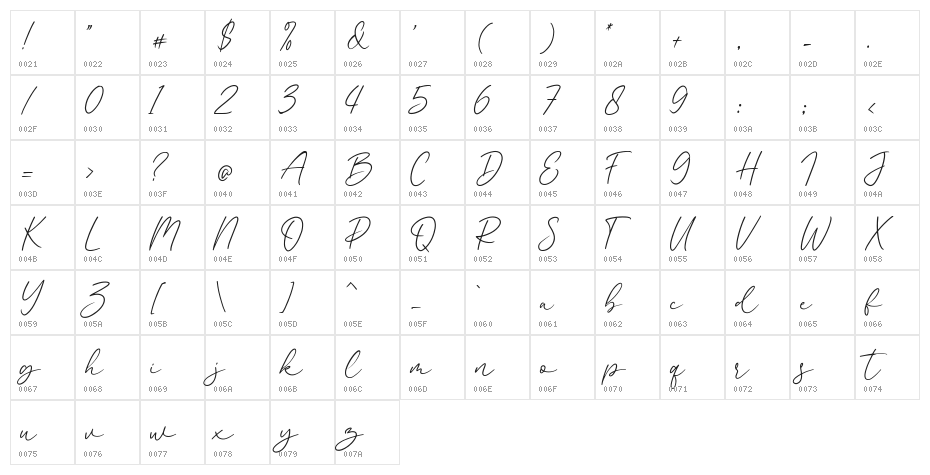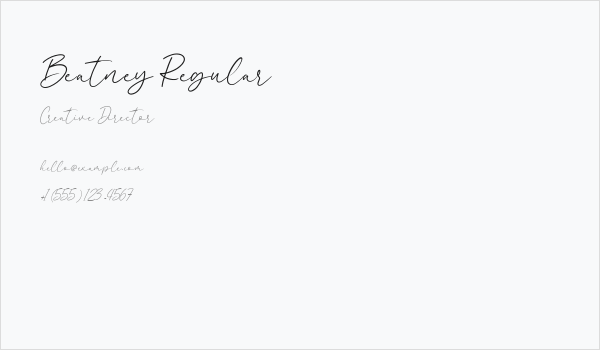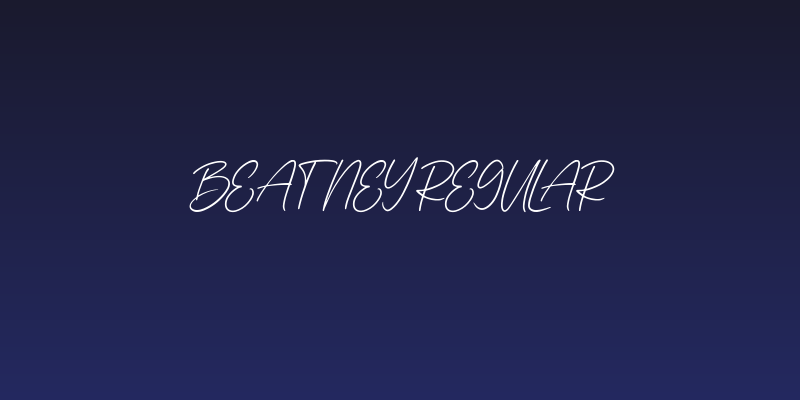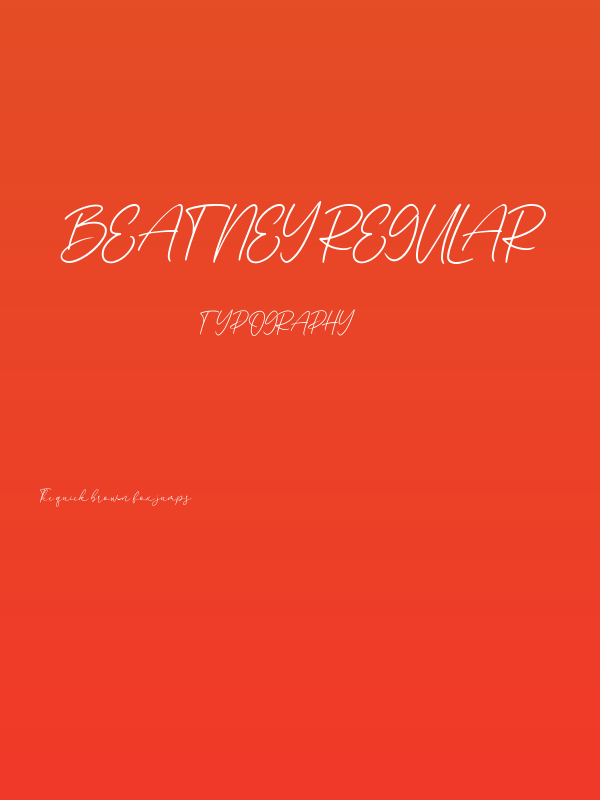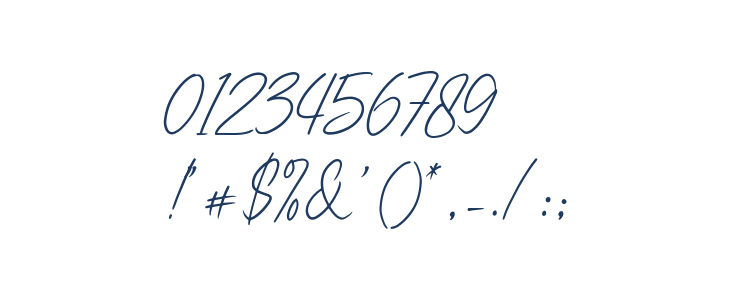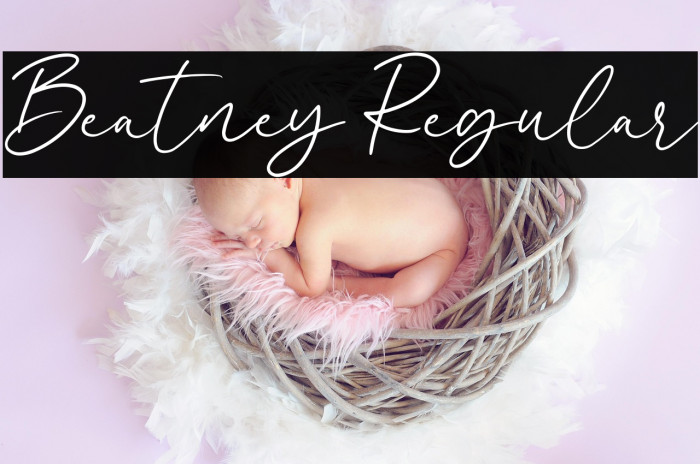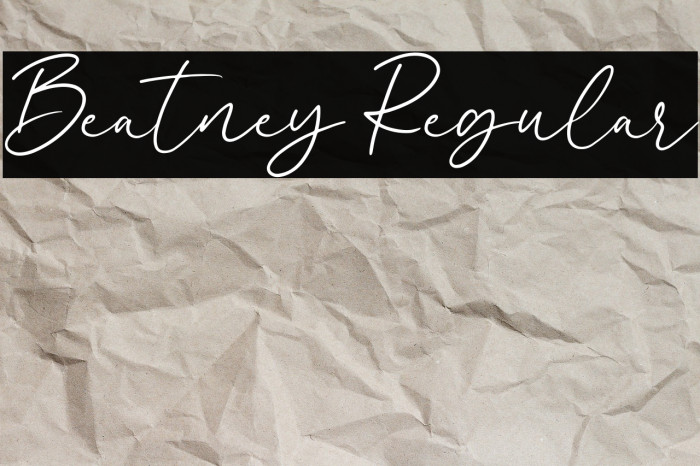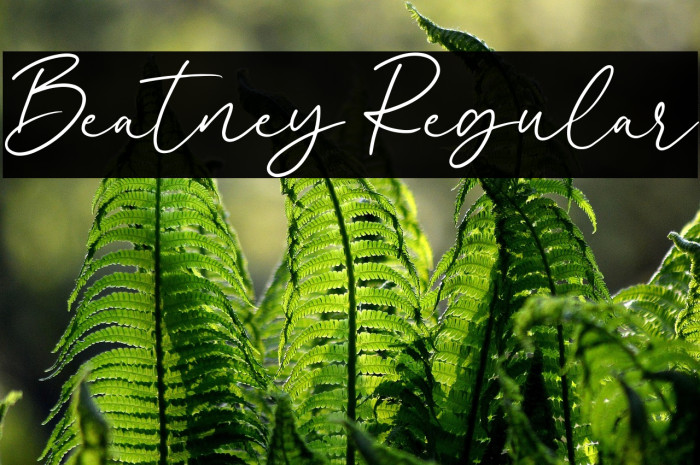
Beatney Regular Font
Beatney Regular Description
This font exudes a modern, handwritten style with a flowing, cursive appearance. The characters are elegantly connected, creating a seamless and fluid look. The uppercase letters maintain a consistent height, while the lowercase letters exhibit a charming variation in size, adding to the font's dynamic nature. The numerals are clear and maintain the same stylistic flow as the letters. Special characters are thoughtfully designed to match the overall aesthetic. The strokes are thin and delicate, contributing to a light and airy feel. This font is perfect for projects that require a personal touch, such as invitations, greeting cards, or branding materials.